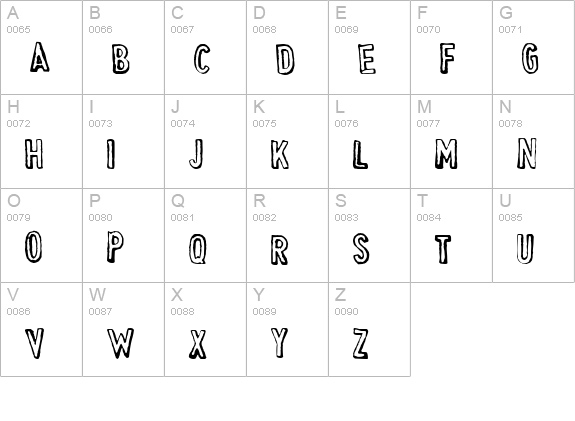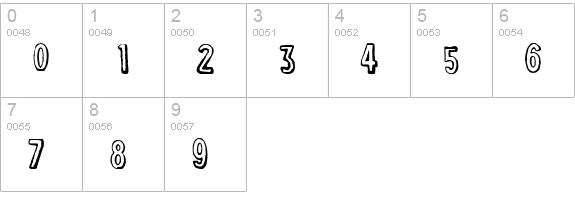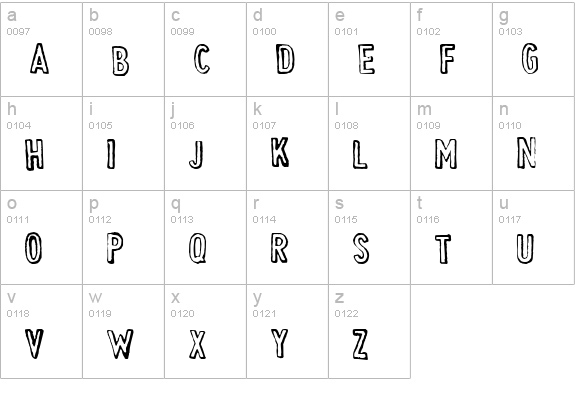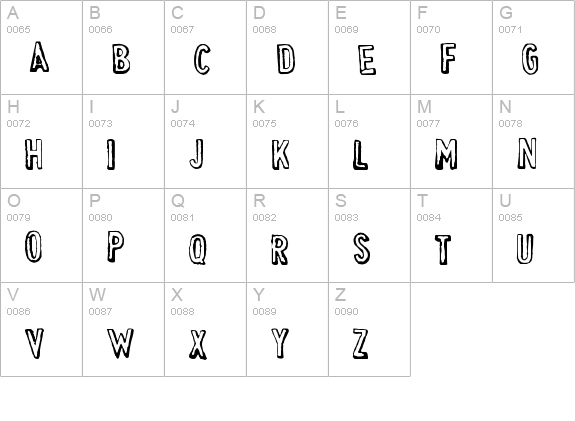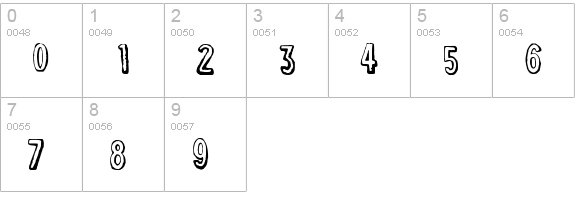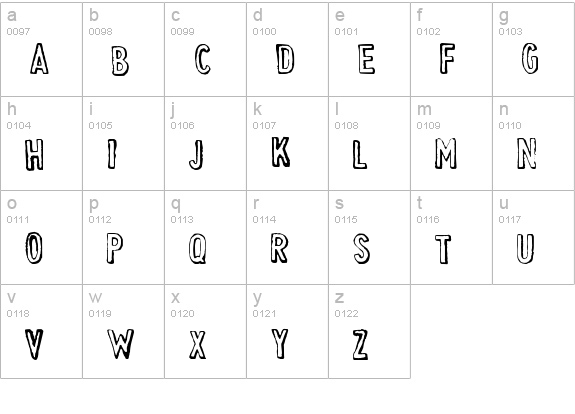
CheapskateOutline Font Details
CheapskateOutline font is a whimsical and playful typeface that adds a touch of creativity to any design project. Its unique outline style gives it a modern and edgy appearance, perfect for catching the eye and making a statement. This font is ideal for headlines, logos, posters, and other creative projects where you want to stand out. The best part? CheapskateOutline font is completely free to download at FontsMarket.com. With just a few clicks, you can add this eye-catching font to your collection and start using it in your designs right away. Don't miss out on the opportunity to enhance your projects with this fun and stylish font - download CheapskateOutline font today!